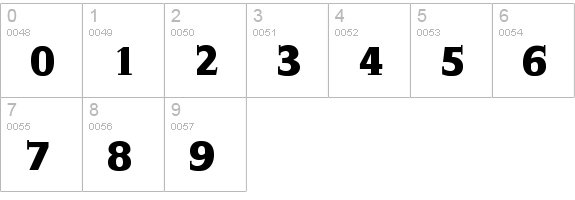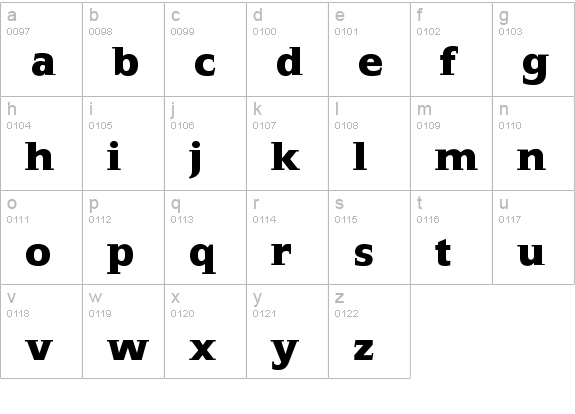
Introducing Epikur R font, a stunning typeface that exudes elegance and sophistication. This font is perfect for adding a touch of luxury and style to any design project. With its sleek lines and timeless appeal, Epikur R font is sure to make a lasting impression. What sets Epikur R font apart is not only its beauty but also the fact that it is available for free. That's right, you can download this exquisite font at no cost from FontsMarket.com. Whether you're working on a branding project, website design, or any other creative endeavor, Epikur R font is a versatile choice that will elevate your work to new heights. Experience the beauty and versatility of Epikur R font today by downloading it for free at FontsMarket.com. Elevate your designs with this elegant typeface and make a statement that is sure to captivate your audience.